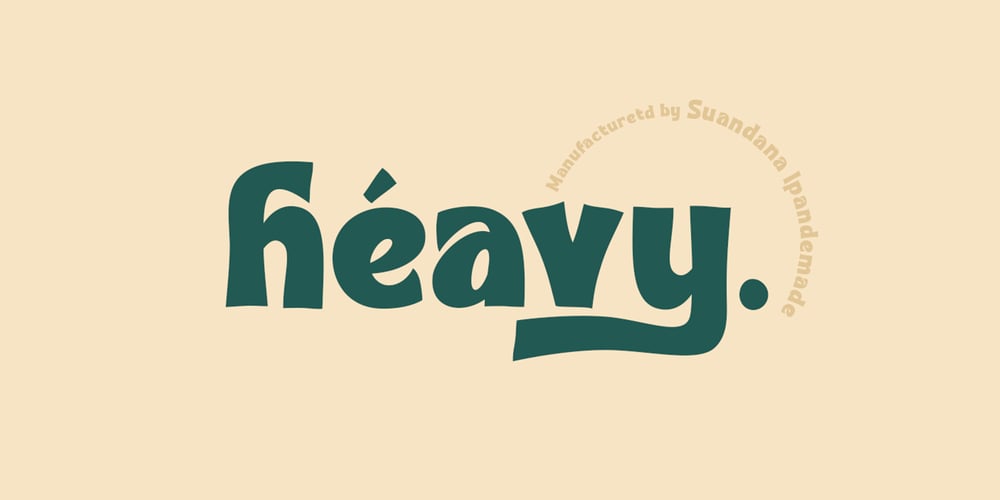
Heavy Font Family was designed by Suandana ipandemade, madededuk and published by madeDeduk. Heavy contains 1 styles and family package options. Introducing Heavy is a fun bold font and will be perfect for book, title branding, product packaging, invitation, quotes, t-shirt, label, poster, logo etc.Feature Uppercase & Lowercase Number & Symbol Alternates Ligatures International Glyphs Multilingual support Feel free to drop us a message any time and follow my shop for upcoming updatesHope you enjoy it.